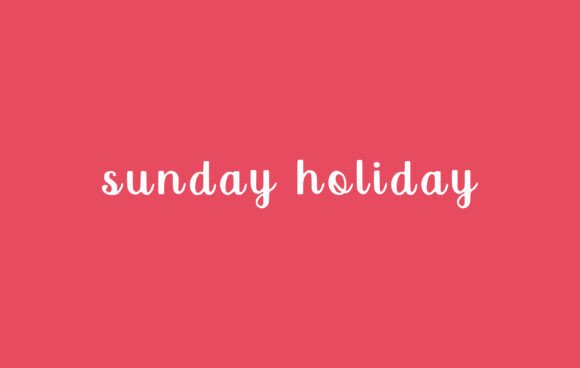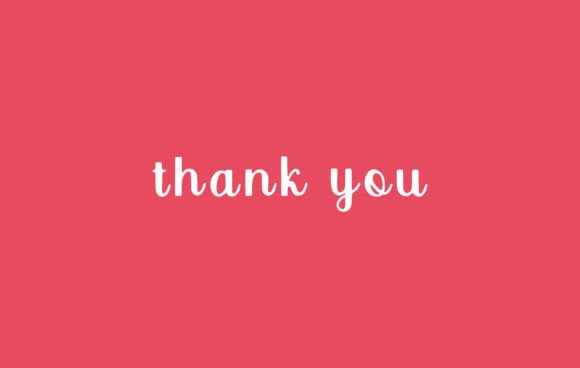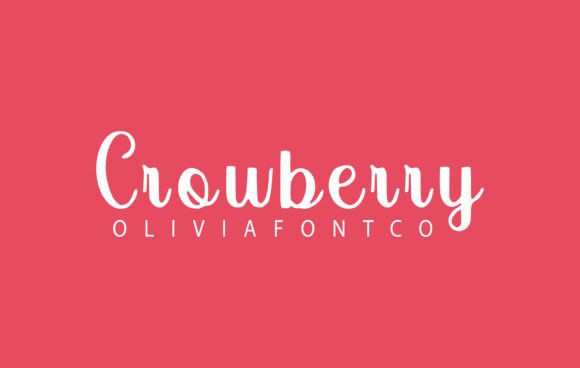
Crowberry Font: Elevate Your Designs with a Romantic Handwritten Touch
In the world of typography, a well-crafted font can make all the difference in bringing your creative ideas to life. If you’re a designer, crafty DIY enthusiast, or simply someone who appreciates beautiful lettering, you’re in for a treat. Introducing Crowberry Font, an authentic handwritten font that exudes a romantic charm like no other.
The Perfect Blend of Elegance and Legibility
Crowberry font is an expertly designed typeface that seamlessly blends elegance with legibility. Its unique, handcrafted aesthetic makes it an instant favorite among designers and crafters alike. Whether you’re looking to create stunning magazine headlines, captivating social media graphics, or beautiful wedding invitations, Crowberry Font is the perfect choice.
One of the standout features of Crowberry Font is its versatility. It looks great as both title and body text, making it an excellent addition to any design project. The font’s romantic touch adds a touch of sophistication and whimsy, perfect for creating eye-catching designs that leave a lasting impression.
So, what can you create with Crowberry Font? The possibilities are endless! Here are just a few ideas to get you started:
- Magazine Headlines: Add a touch of elegance to your magazine spreads with Crowberry Font. Its bold, yet delicate appearance makes it perfect for grabbing readers’ attention.
- Social Media Graphics: Elevate your social media presence with stunning graphics featuring Crowberry Font. From Facebook posts to Instagram stories, this font is sure to make your content stand out.
- Branding: Create a lasting impression with Crowberry Font. Use it to craft beautiful logos, business cards, or letterheads that reflect your brand’s unique personality.
- Wedding Invitations: Make your special day even more unforgettable with beautiful wedding invitations featuring Crowberry Font. Its romantic charm is sure to set the tone for a memorable celebration.
- Cards and Stationery: Add a personal touch to your cards, letters, and other stationery with Crowberry Font. Its whimsical appearance makes it perfect for creating one-of-a-kind designs.
Why Choose Crowberry Font?
With so many fonts available, why choose Crowberry Font? Here are just a few reasons why designers and crafters love this beautiful typeface:
- Unique and Authentic: Crowberry Font is a one-of-a-kind, handcrafted typeface that adds a touch of personality to any design.
- Legible and Versatile: Its excellent legibility and versatility make it perfect for a wide range of design projects.
- Romantic Charm: Crowberry Font’s romantic touch adds a touch of whimsy and sophistication to any design.
Get Creative with Crowberry Font
Ready to take your designs to the next level with Crowberry Font? Whether you’re a seasoned designer or a crafty DIY enthusiast, this beautiful handwritten font is sure to inspire your creativity. With its unique blend of elegance and legibility, Crowberry Font is the perfect choice for anyone looking to add a touch of romance and sophistication to their designs.